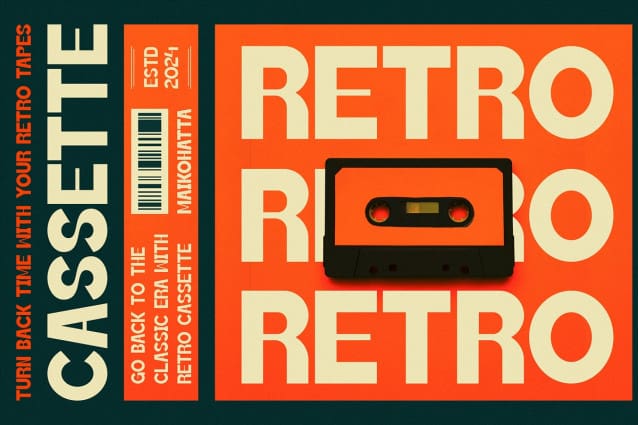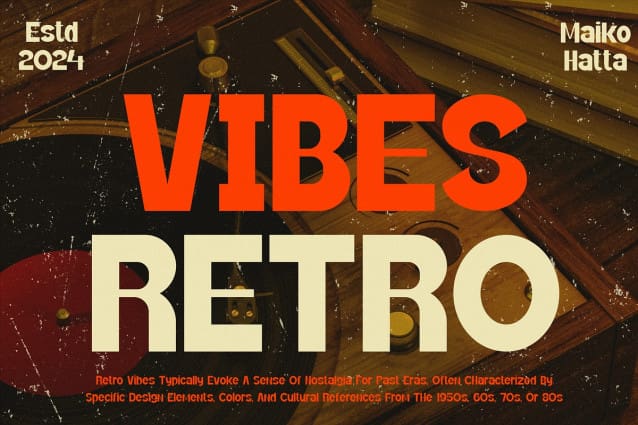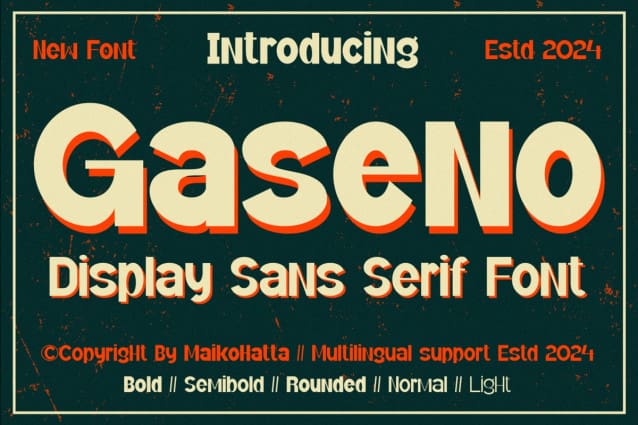
Gaseno Font
Gaseno Font – Display Sans Serif Font. A sans-serif font family available in various styles is a highly versatile choice for graphic design and clean, modern text displays. This sans-serif font family offers flexibility in graphic design, and its various styles allow you to customize the appearance of text to suit your project’s needs. With various combinations, you can create attractive and easy-to-read text displays in various contexts.